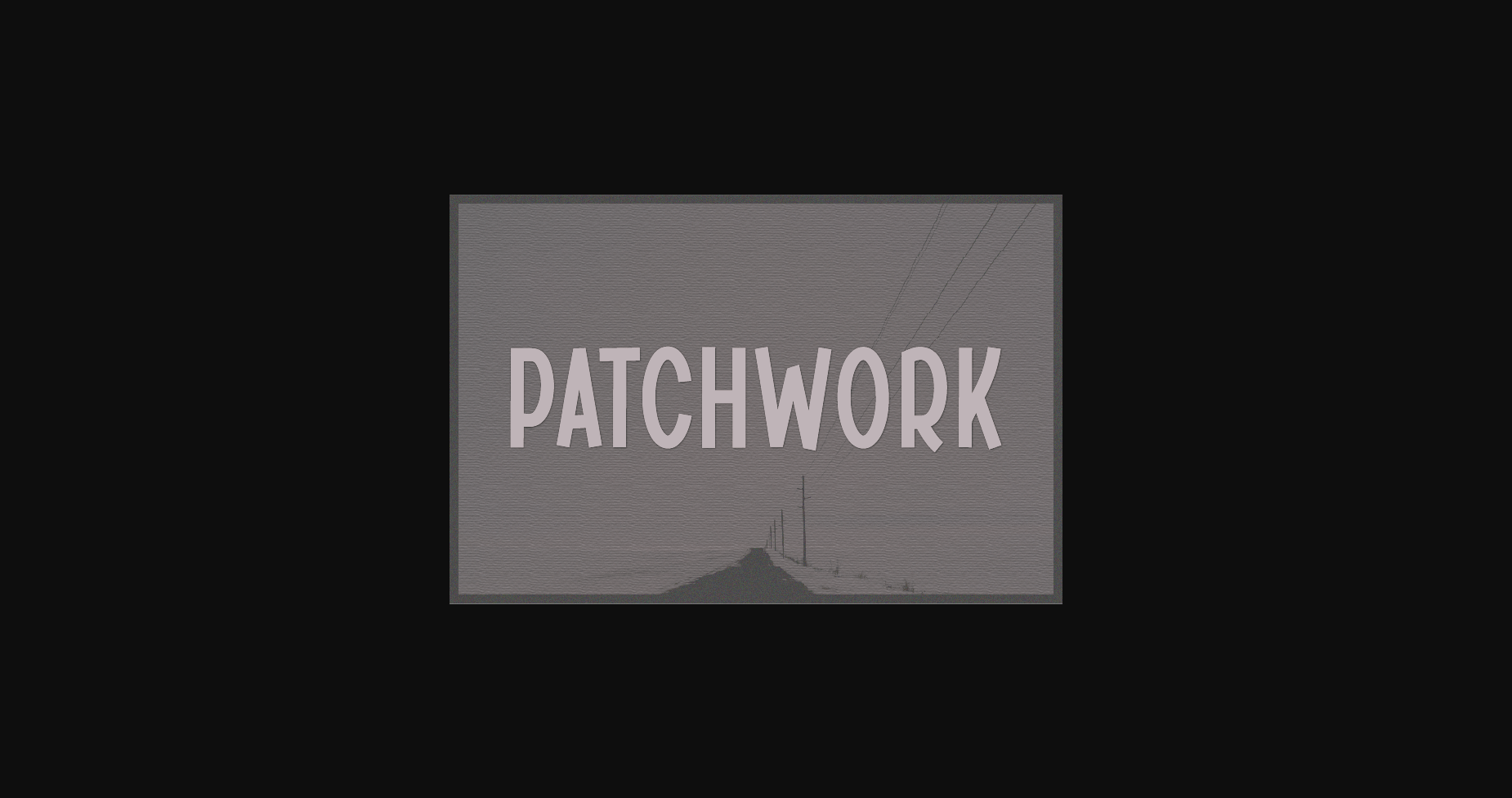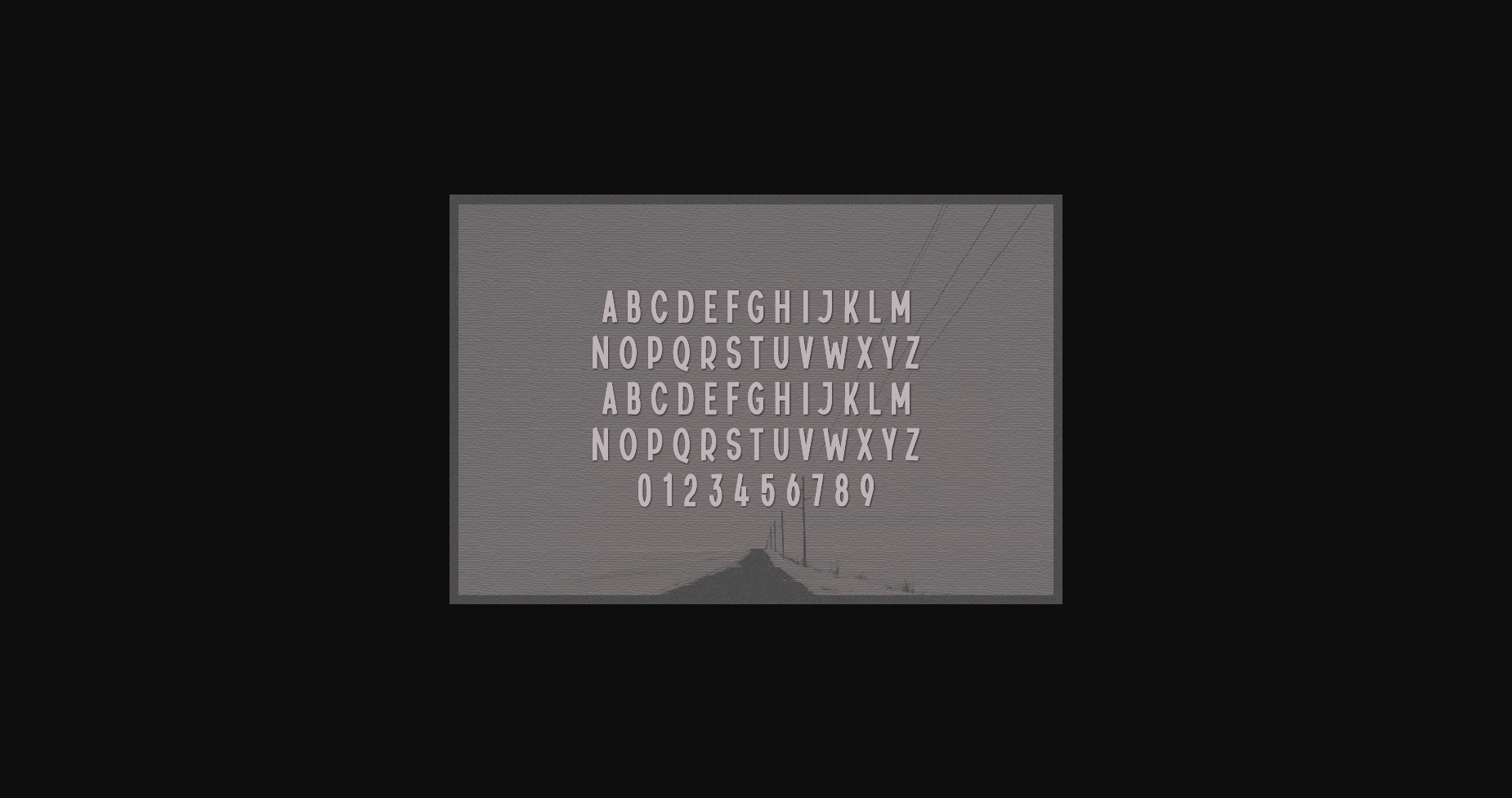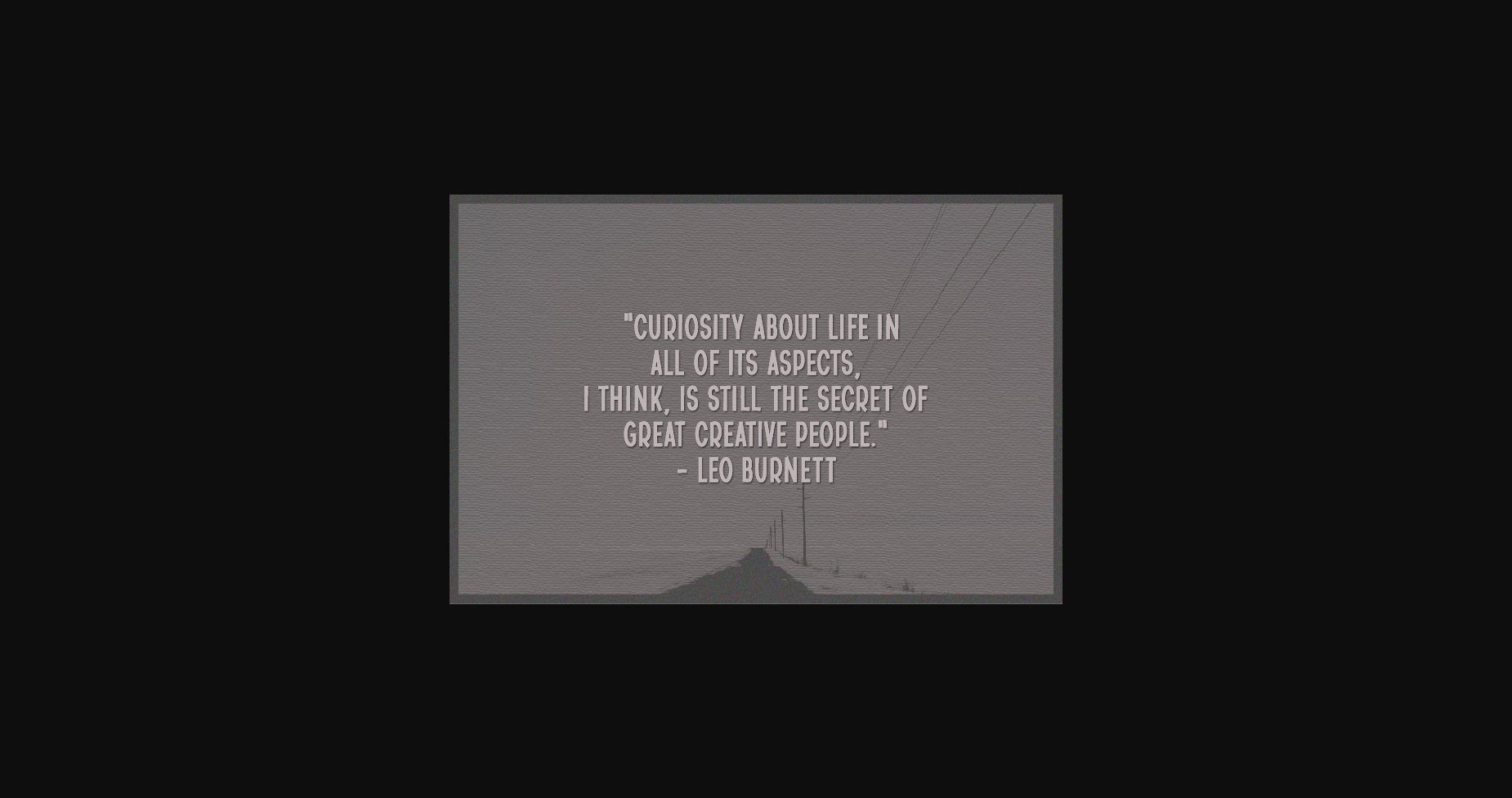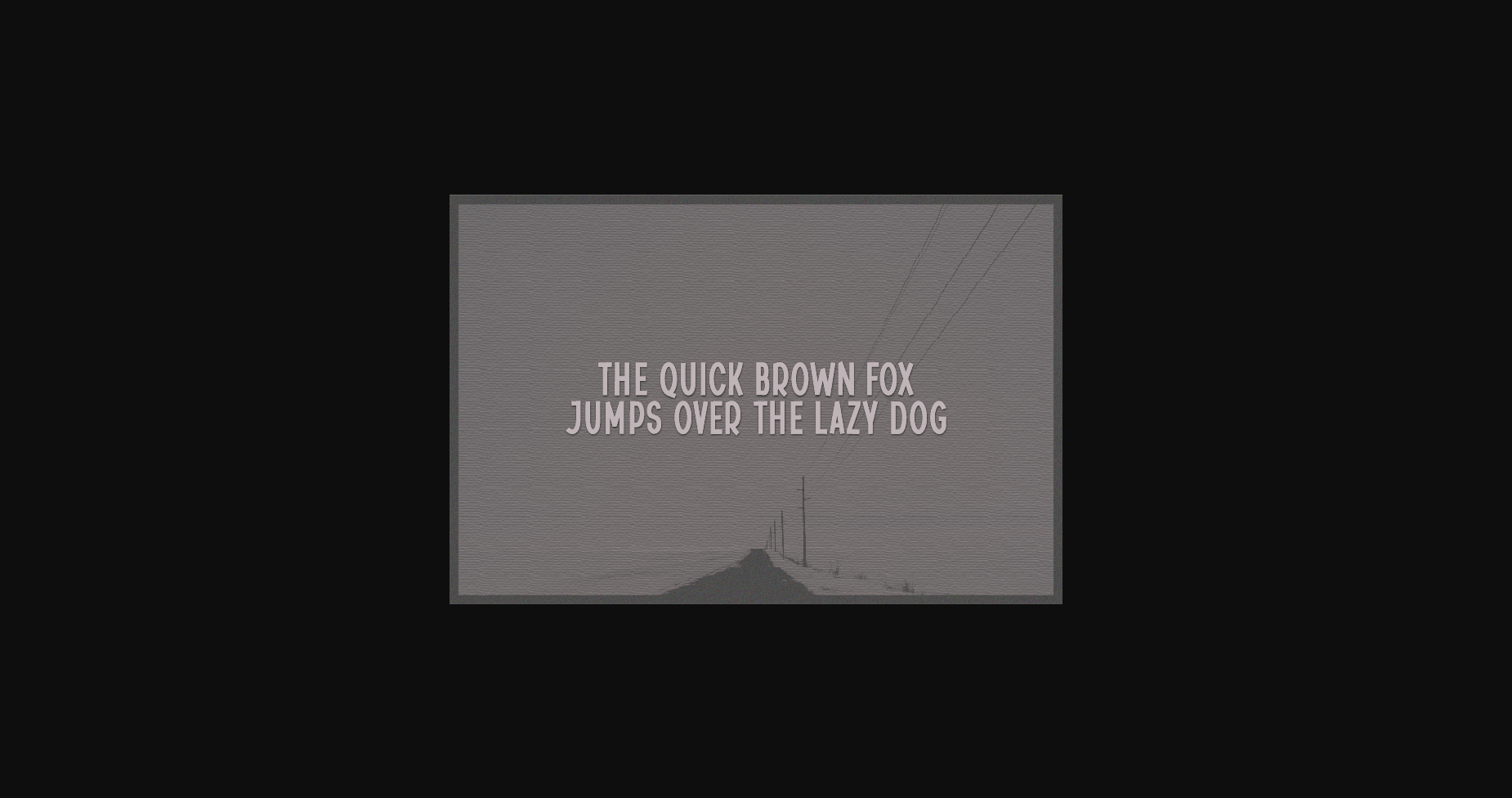
Patchwork Font
About Patchwork Font
Patchwork is a natural sans font made without changing a single node in each character’s indentation- this makes this font very interesting and unique. Perfect for quotes, notes, tees, and any product design.